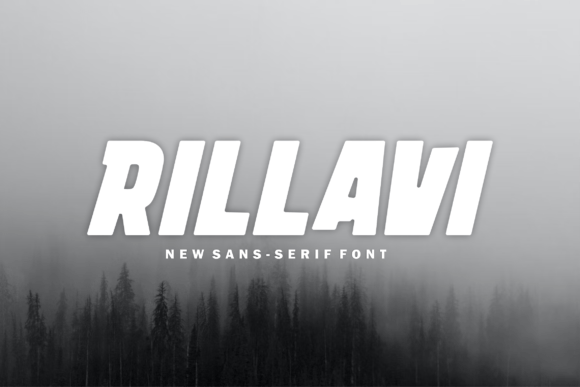
Prepare to be captivated by Rillavi Font, the sans-serif masterpiece designed to elevate your digital presence and make your words dance with elegance and grace. Experience the joy of composing captivating text messages that exude a touch of sophistication and exclusivity. With Rillavi Font, your iPhone will transform into an exquisite canvas, allowing you to craft messages that leave a lasting impression on every recipient.
Step into a world of limitless possibilities, where Rillavi Font empowers you to craft beautiful signatures that exude confidence and style. Picture your name, rendered in the elegant strokes of Rillavi Font, adorning wedding invitations, letterheads, and personal notes. Its timeless appeal adds a touch of class to every written word, making it the perfect choice for those who seek to make a lasting impression.
As you delve into the depths of Rillavi Font's versatility, you'll discover its ability to breathe life into logos and branding. Imagine your brand's identity taking shape through the captivating curves and sharp angles of this font. Rillavi Font commands attention, inspiring trust and admiration with its regal presence. Whether you're creating a logo for a luxury fashion house or a cutting-edge tech company, Rillavi Font will elevate your brand to new heights.
Unleash your creativity and explore the endless possibilities of Rillavi Font in the world of typography quotes. Let the words of wisdom, inspiration, and love find their perfect match in this font, as its elegant lines enhance their emotional impact. Transform quotes into captivating works of art, ready to adorn social media posts, website banners, or the pages of your favorite books.
When it comes to magazine and book covers, Rillavi Font's allure is undeniable. Its ability to capture attention and create an air of sophistication makes it the ideal choice for publications that demand a touch of elegance. Picture the cover of your magazine or book, graced by the timeless beauty of Rillavi Font, inviting readers to delve into worlds unknown.
Let Rillavi Font guide you as you create website headers that captivate and inspire. Its bold strokes and graceful curves draw the eye, creating a compelling first impression that encourages visitors to explore further. Imagine your website's header, adorned with the sophisticated charm of Rillavi Font, inviting users to embark on a journey of discovery and engagement.
In the realm of fashion, Rillavi Font shines as a beacon of style and exclusivity. Imagine your clothing line's designs adorned with the elegant lines of Rillavi Font, conveying a sense of luxury and sophistication. From t-shirts to haute couture, Rillavi Font adds a touch of timeless glamour to every creation.
Packaging design takes on a new dimension with the introduction of Rillavi Font. Its ability to transform ordinary packaging into works of art is truly remarkable. Picture your products, wrapped in packaging adorned with the exquisite strokes of Rillavi Font, commanding attention on shelves and leaving a lasting impression on customers.
With Rillavi Font, the possibilities are as limitless as your imagination. Its versatility knows no bounds, making it the perfect companion for a wide range of projects. Whether you're a designer, marketer, or simply someone who appreciates the art of beautiful typography, Rillavi Font is the key to unlocking your creative potential. Embrace the elegance, sophistication, and endless possibilities that await you with Rillavi Font.